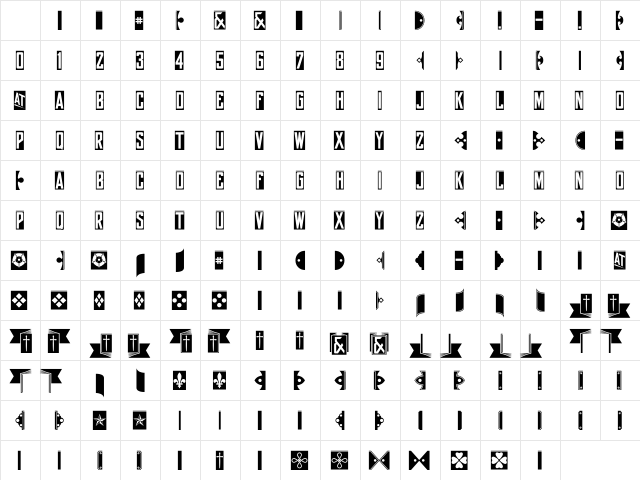
Complete yorkwhiteletter Regular glyph index. Displaying only characters natively supported by yorkwhiteletter Regular font.
yorkwhiteletter is a composed and adaptable typeface that performs quietly and consistently across a wide range of design contexts.